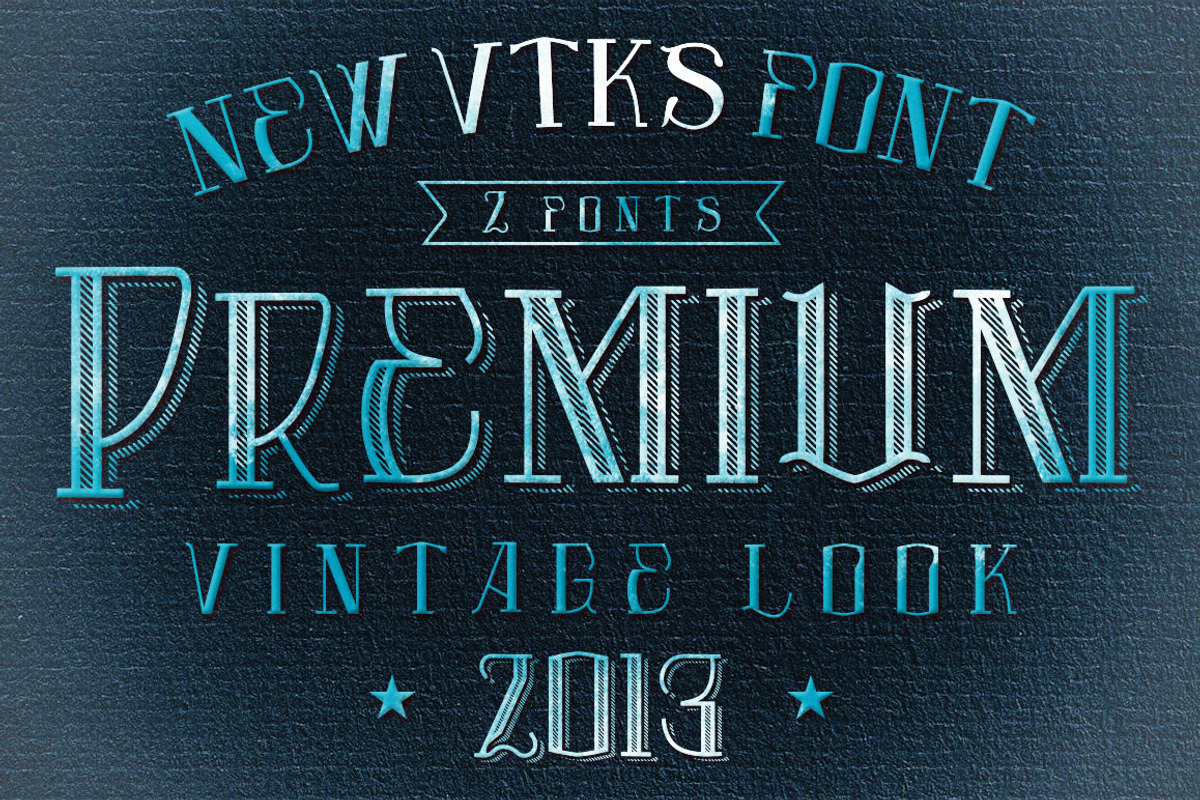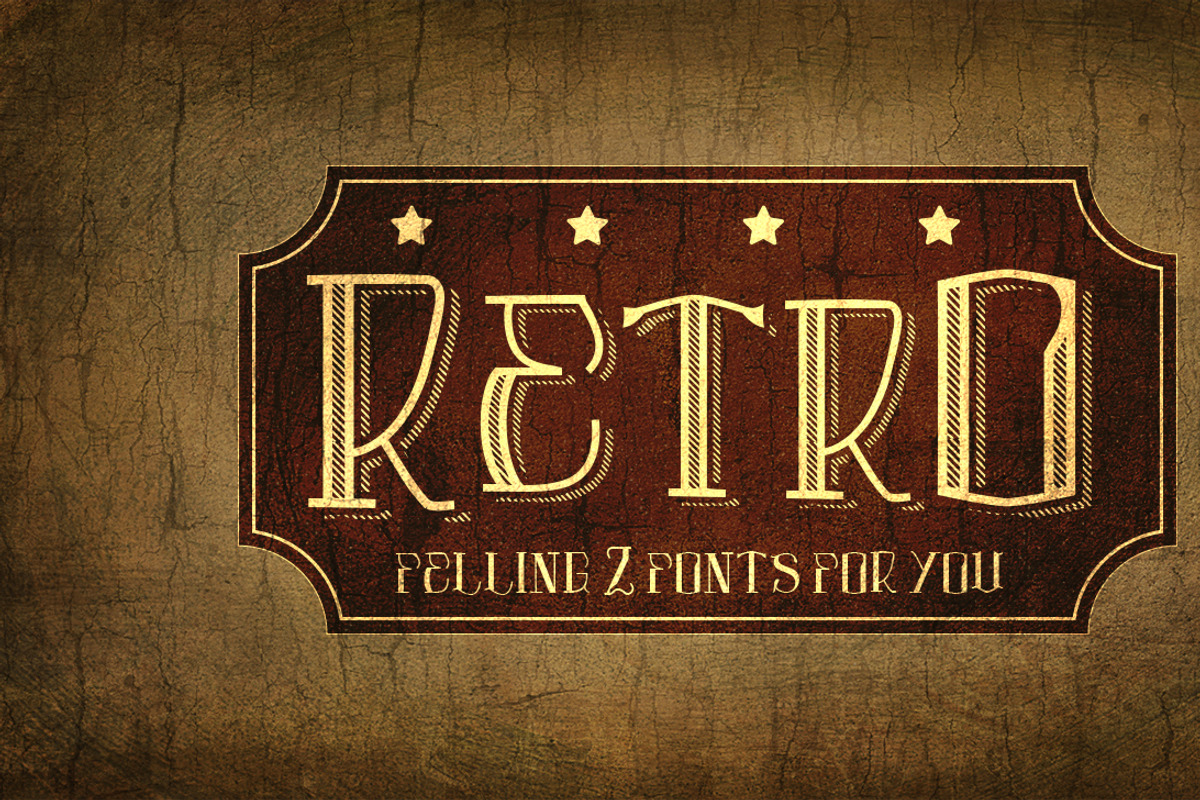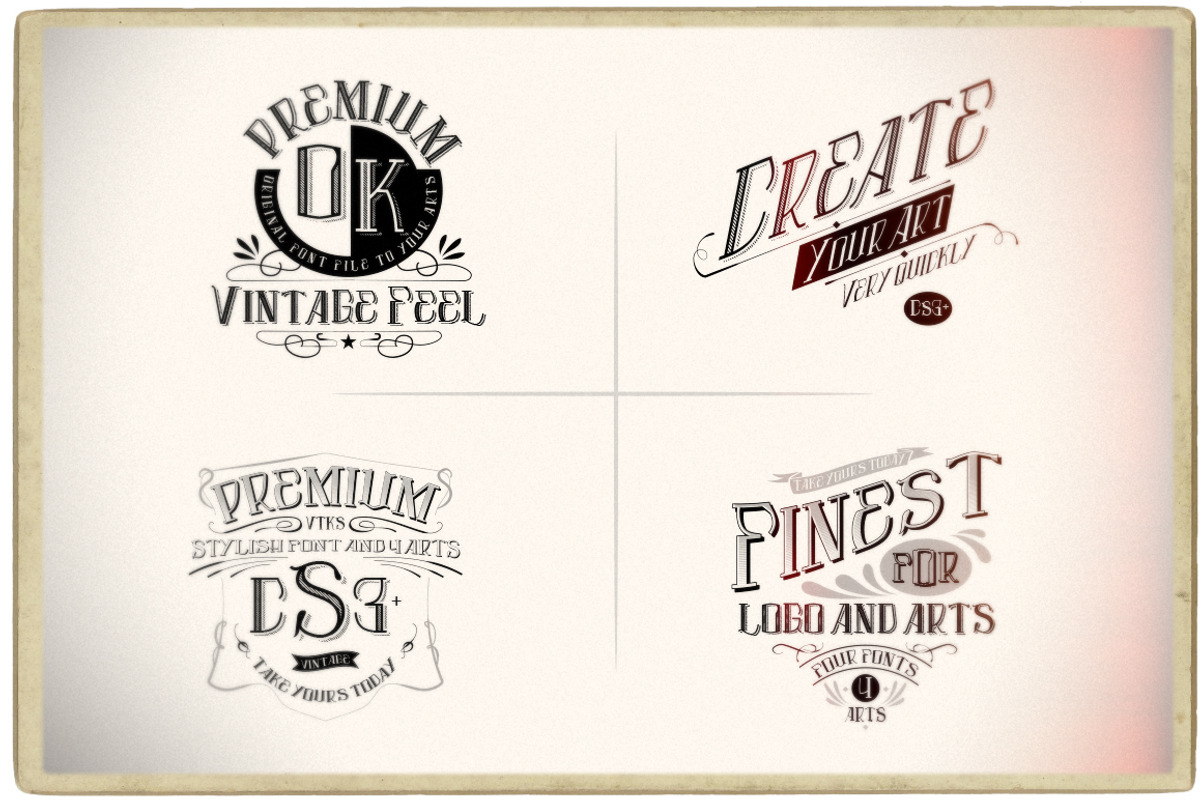
Premium Font By Vtks 4 Arts
Premium Font By Vtks 4 Arts by VTKS + 4 arts, a Font by vtks design is a font selected for branding, posters, packaging, typography.
Why Premium Font By Vtks 4 Arts is worth a look
Premium Font By Vtks 4 Arts by VTKS + 4 arts, a Font by vtks design fits naturally into Branding, posters, packaging, typography.